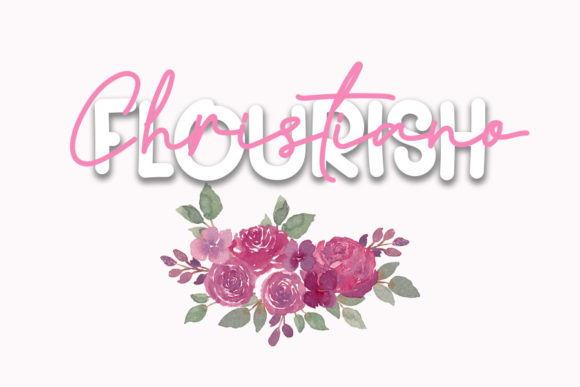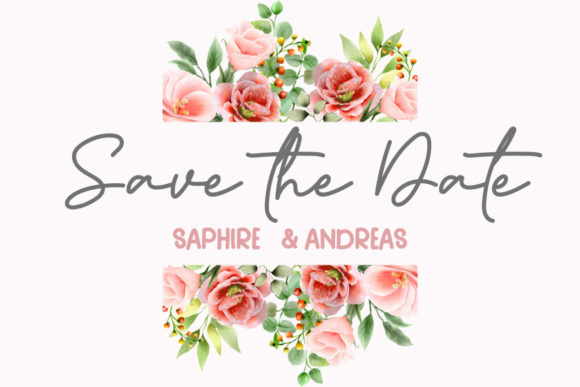
Anne Marrie Font
db-ku.com - Script & Handwritten -- Anne Marrie is a lovely duo font (script and sans serif). Incredibly versatile, this font fits a wide pool of designs, elevating them to the highest levels. Add this font to your favorite creative ideas and notice how it makes them come alive!